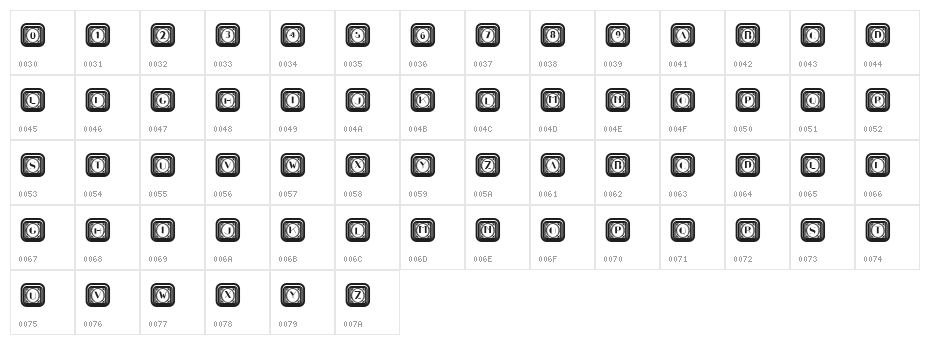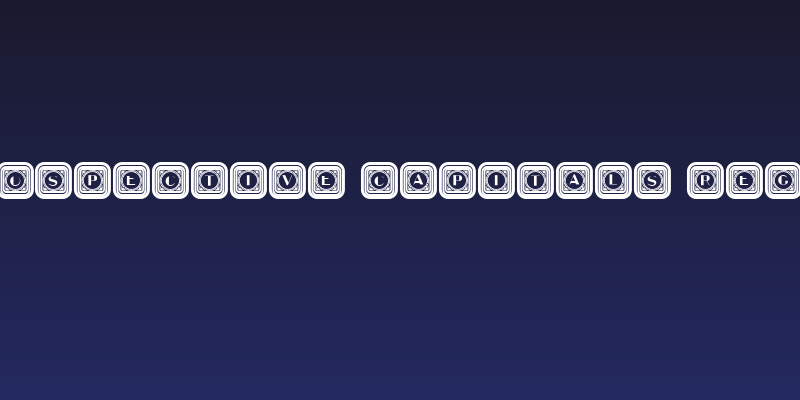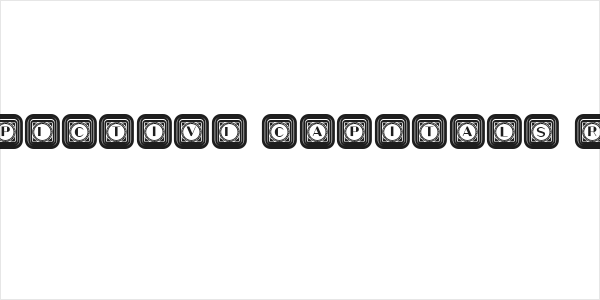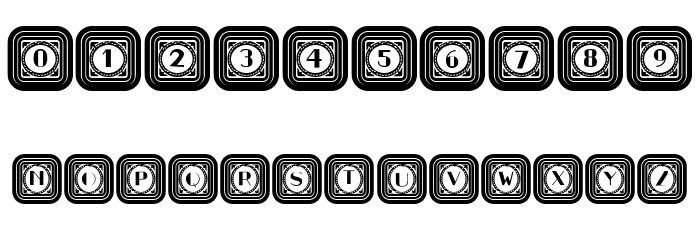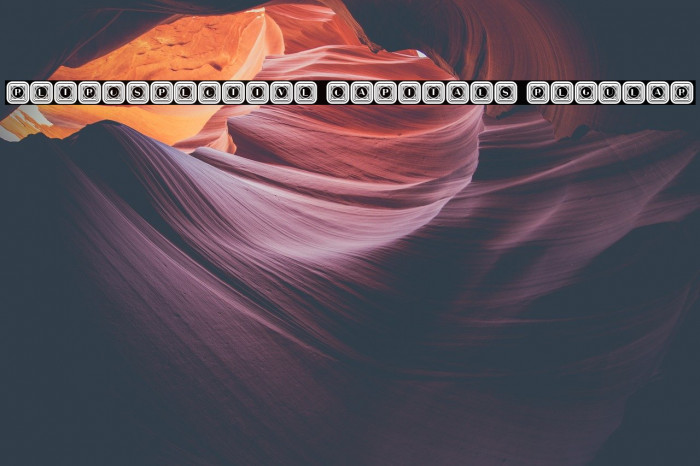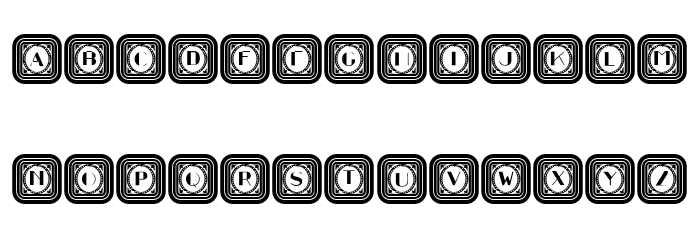
Retrospective Capitals Regular Font
Retrospective Capitals Regular Description
This font features a bold, decorative style with each character encased in a square border, reminiscent of vintage typewriter keys. The letters are uppercase, with a distinct retro flair, characterized by thick strokes and high contrast between the character and its outline. The design is highly ornamental, making it stand out in any design project. The numbers and special characters follow the same stylistic approach, ensuring consistency across all elements. This font is ideal for projects that require a nostalgic or classic touch, such as vintage posters, themed events, or branding that seeks to evoke a sense of history.
| Proposed Projects | Ideal for vintage posters, themed events, retro branding, or any project needing a classic touch. |